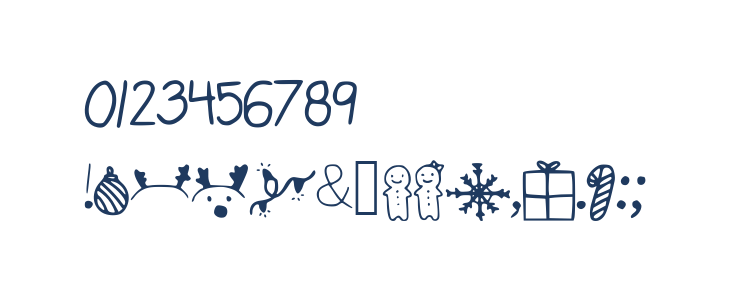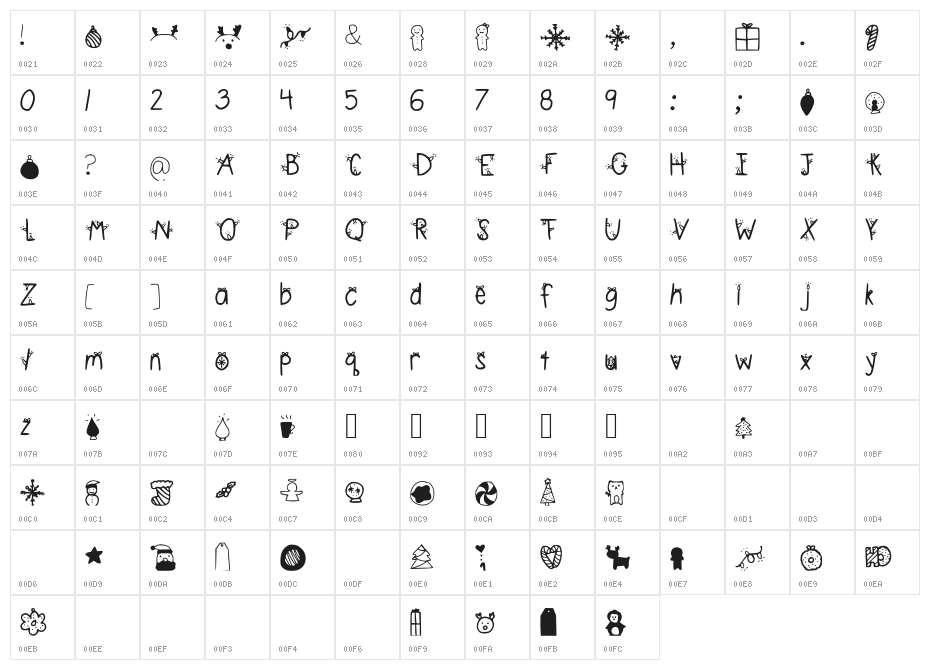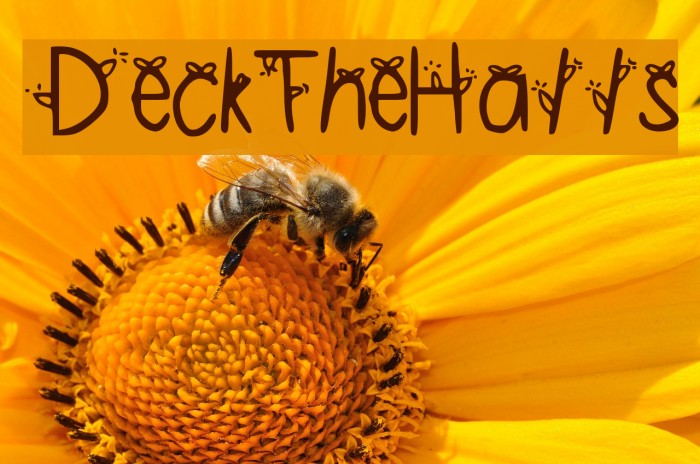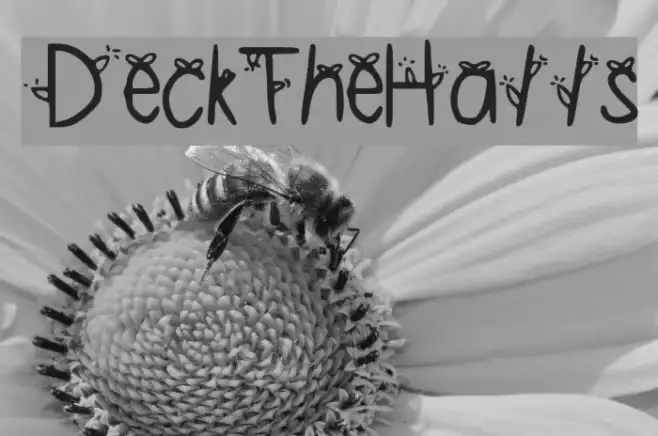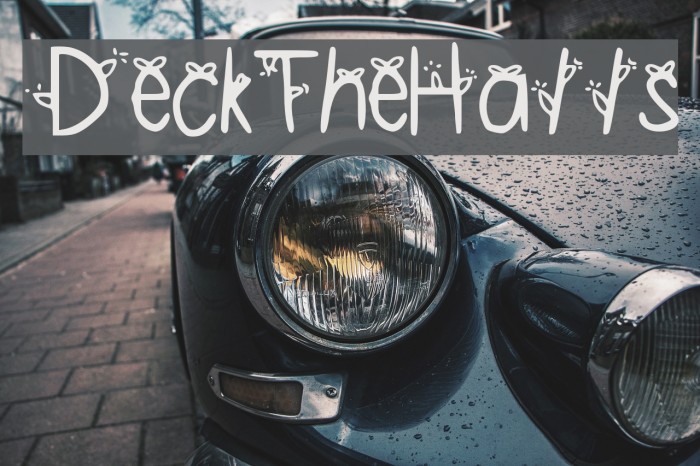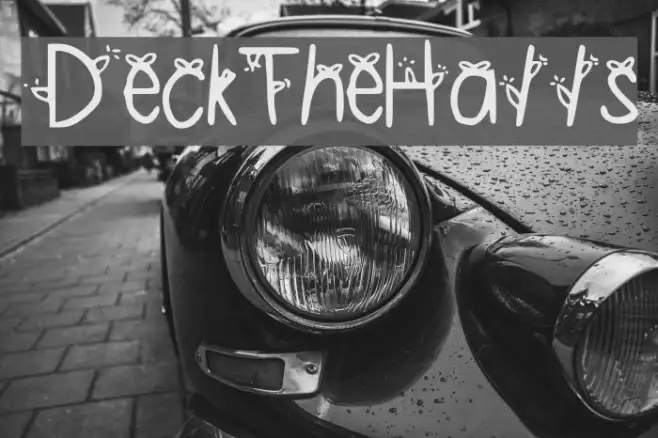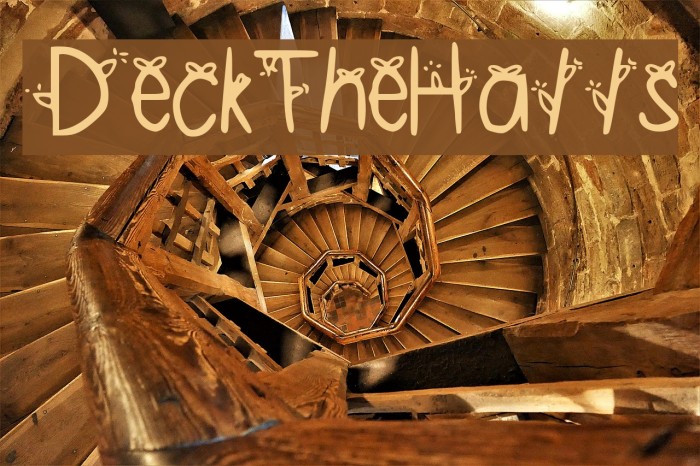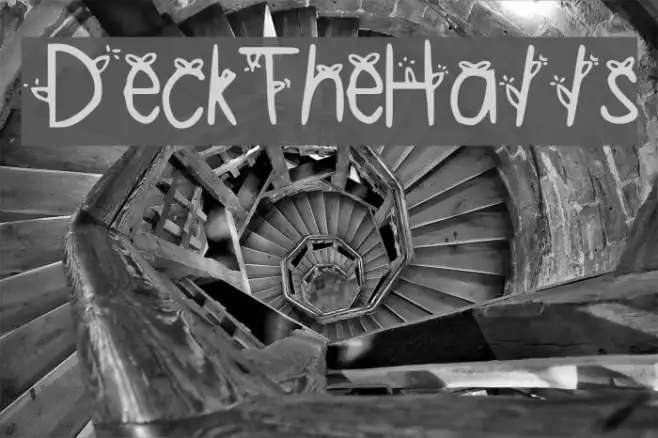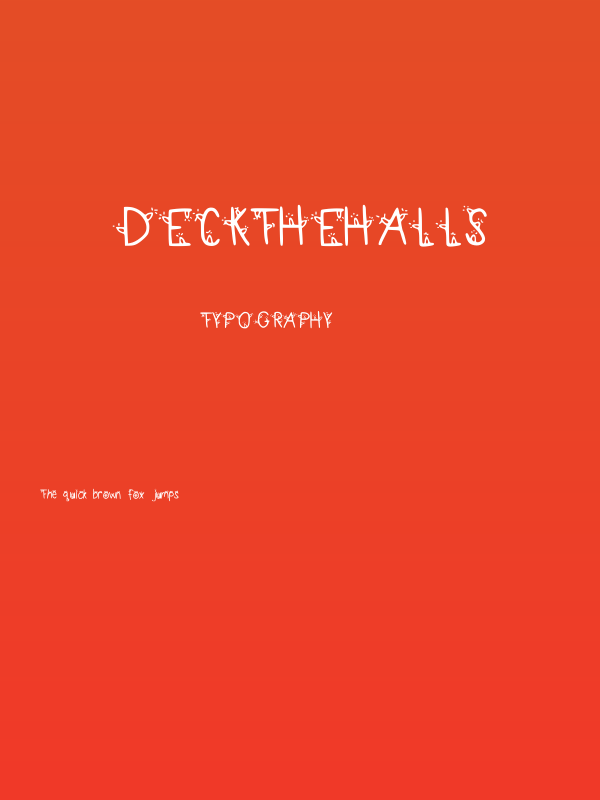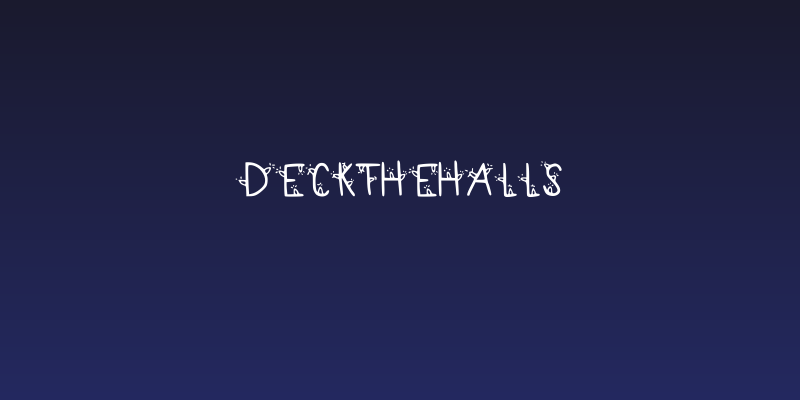
DeckTheHalls Font
DeckTheHalls Description
This whimsical and festive font features playful, decorative elements that evoke a holiday spirit. Each character is adorned with unique embellishments, such as snowflakes, holly, and other seasonal motifs, adding a cheerful and lively touch. The letters are slightly irregular, enhancing the hand-drawn, casual feel. The numbers and special characters continue the theme with similar decorative accents, making this font perfect for creating a joyful and festive atmosphere. Its distinct style captures the essence of holiday cheer, making it ideal for seasonal projects.
| Use Case | Headlines, Logos, Decorative text |
| Proposed Projects | Ideal for holiday cards, festive invitations, seasonal posters, and decorative crafts. |